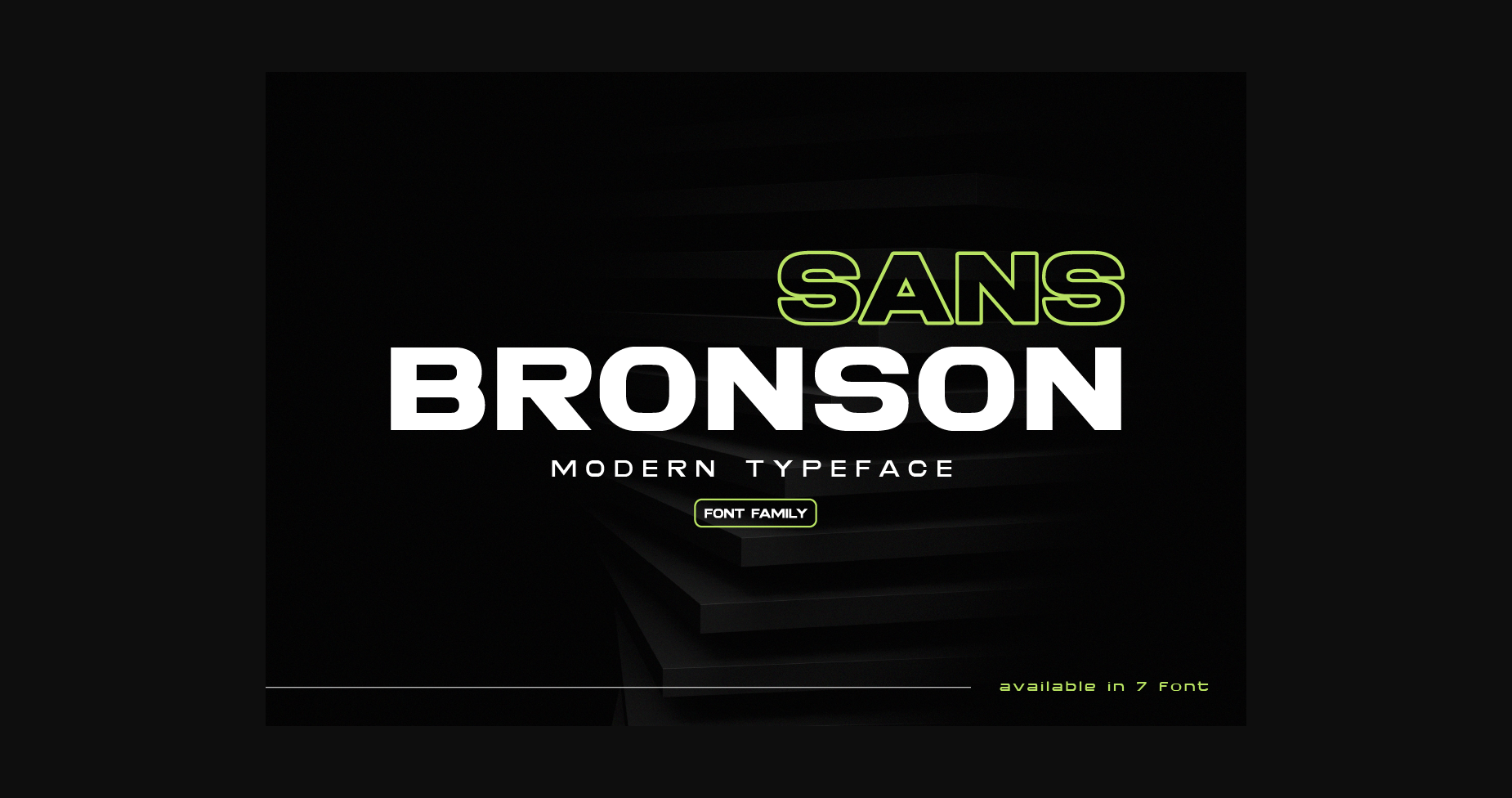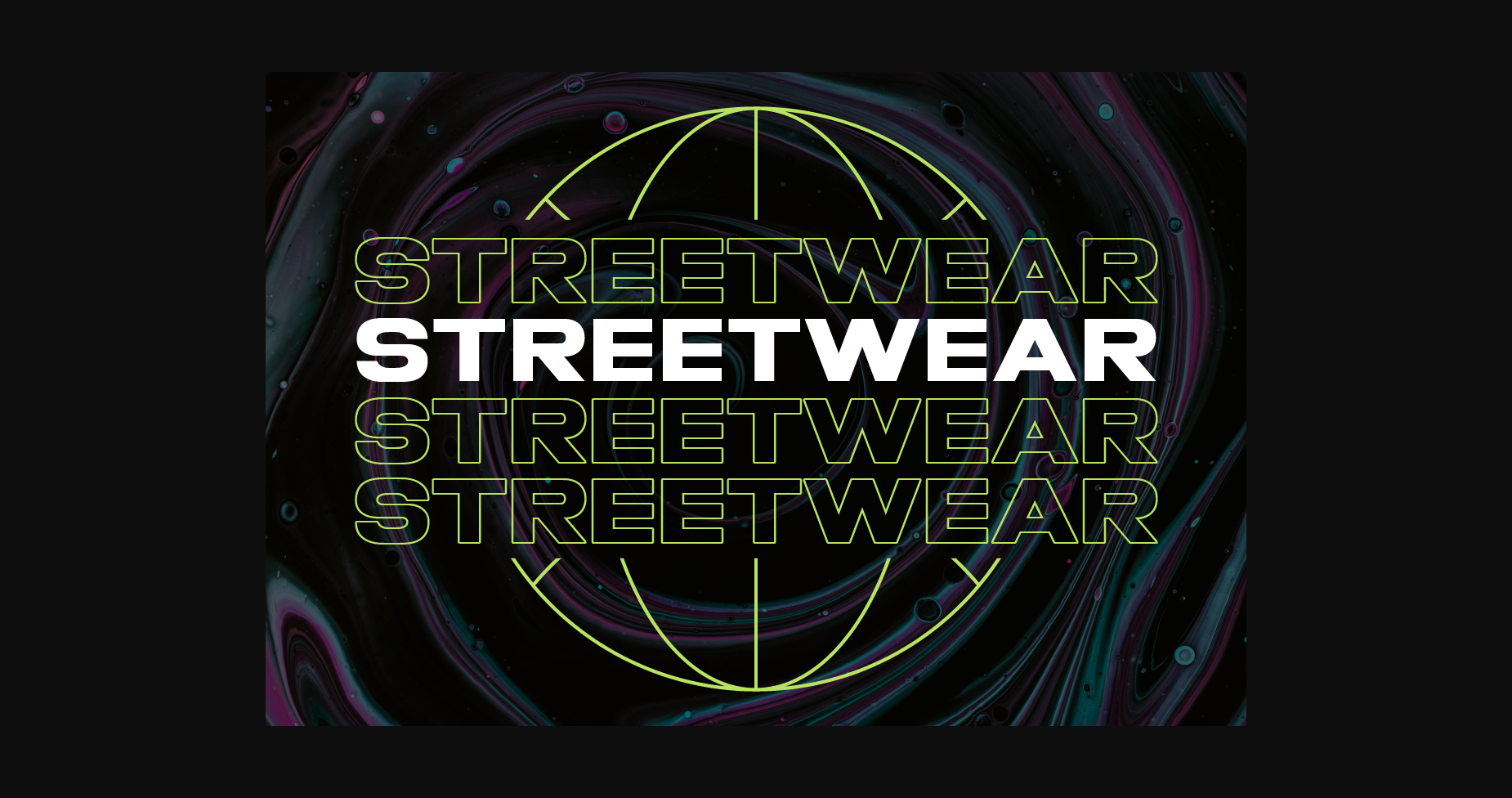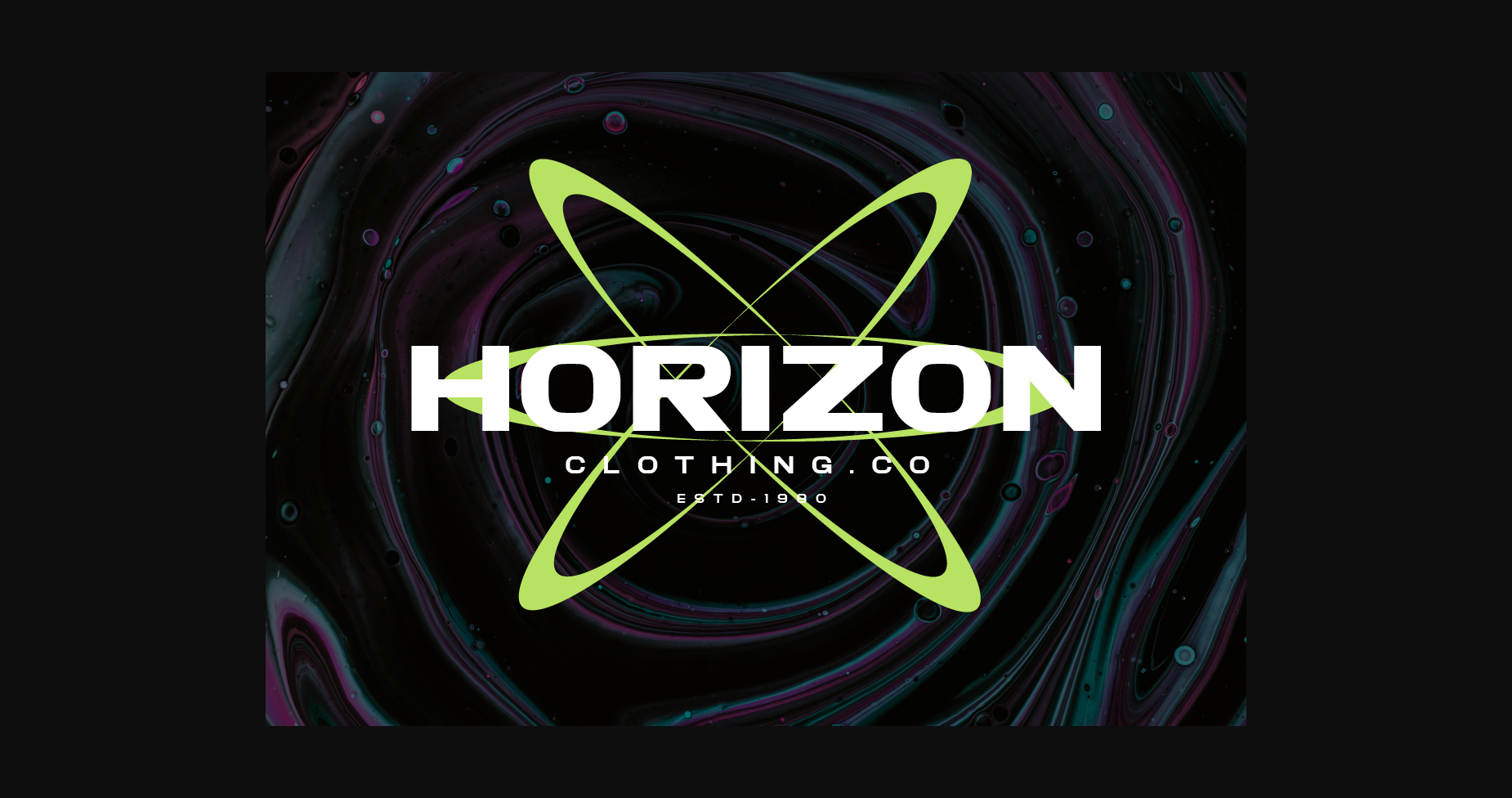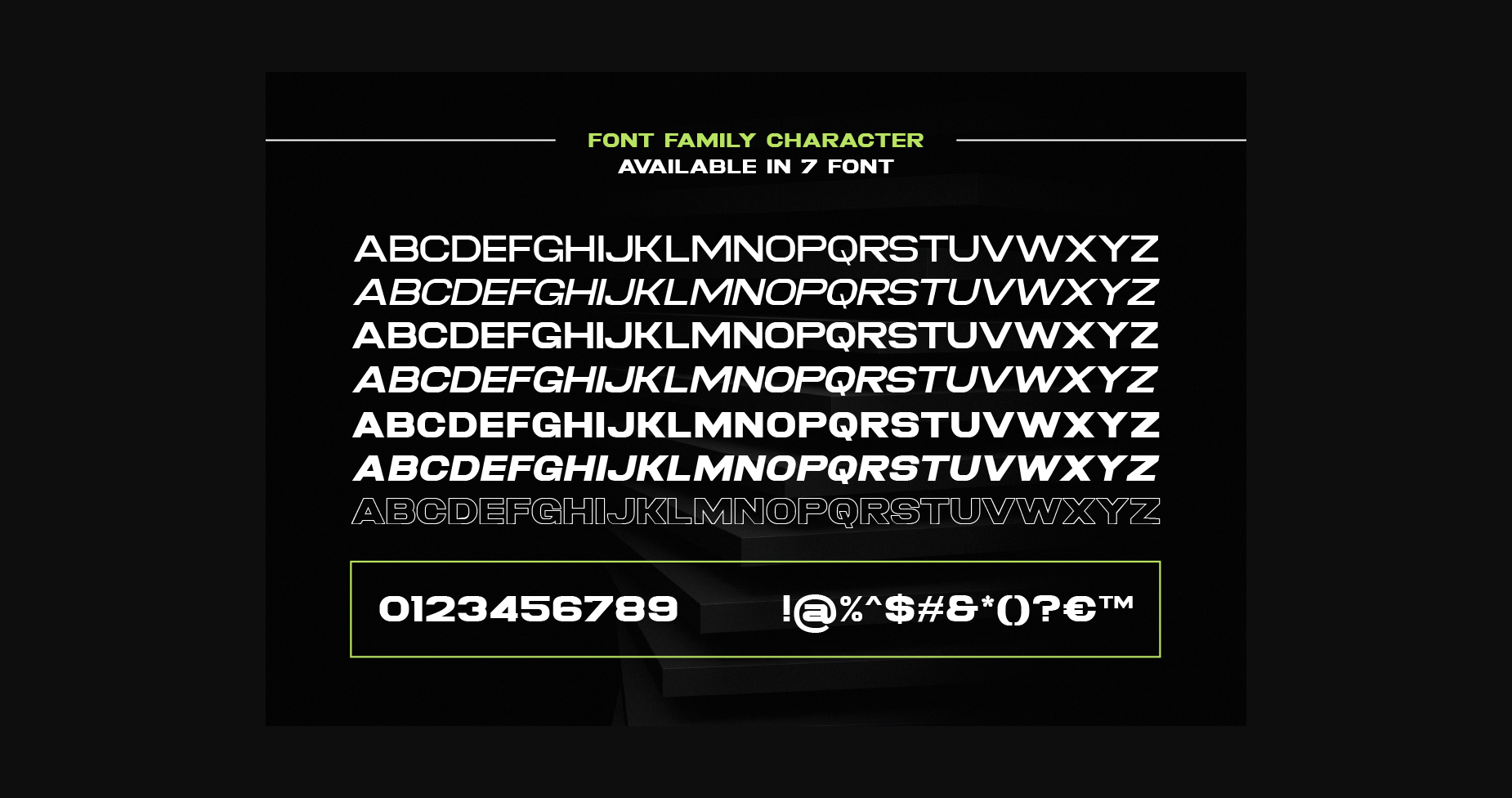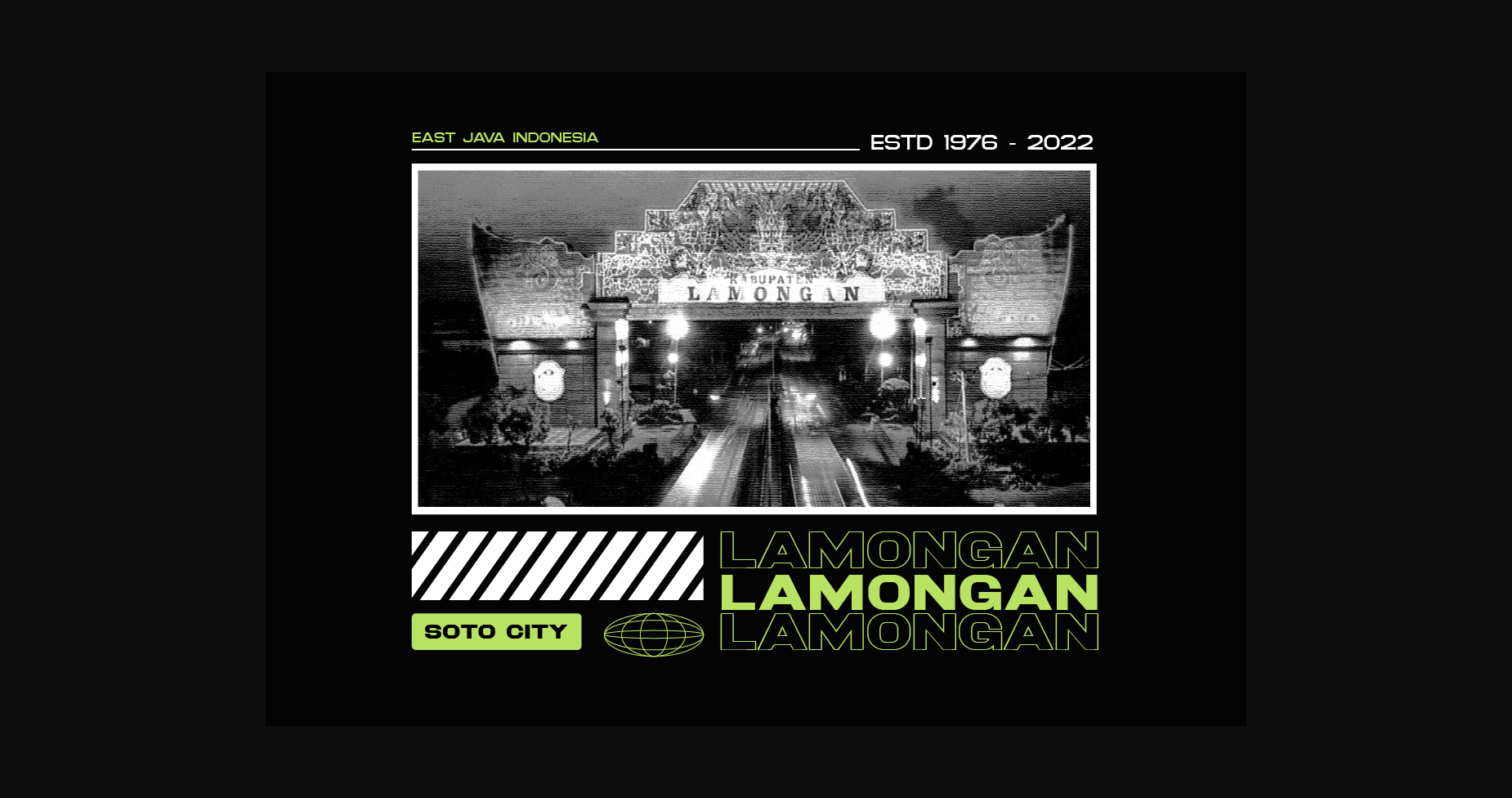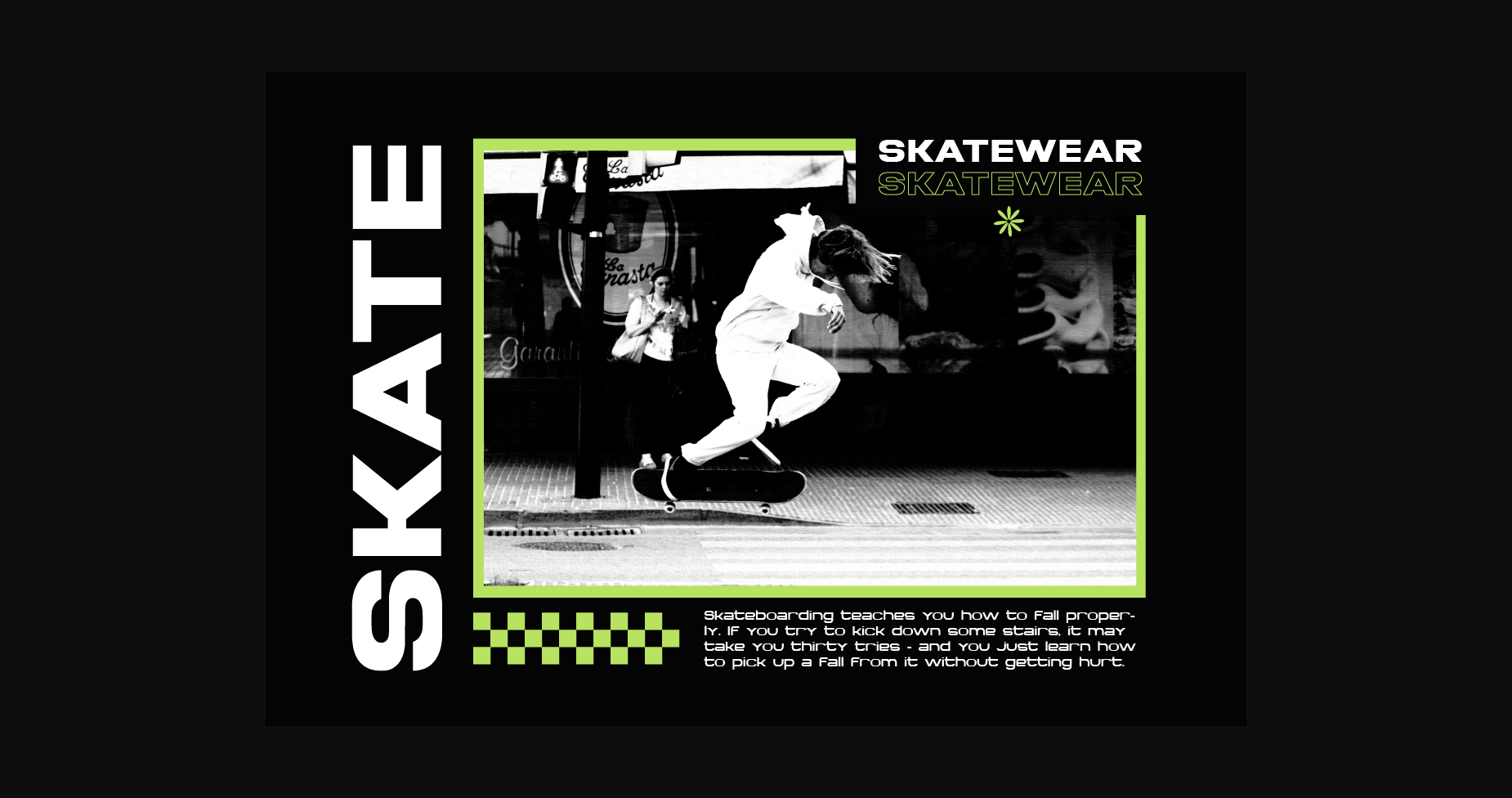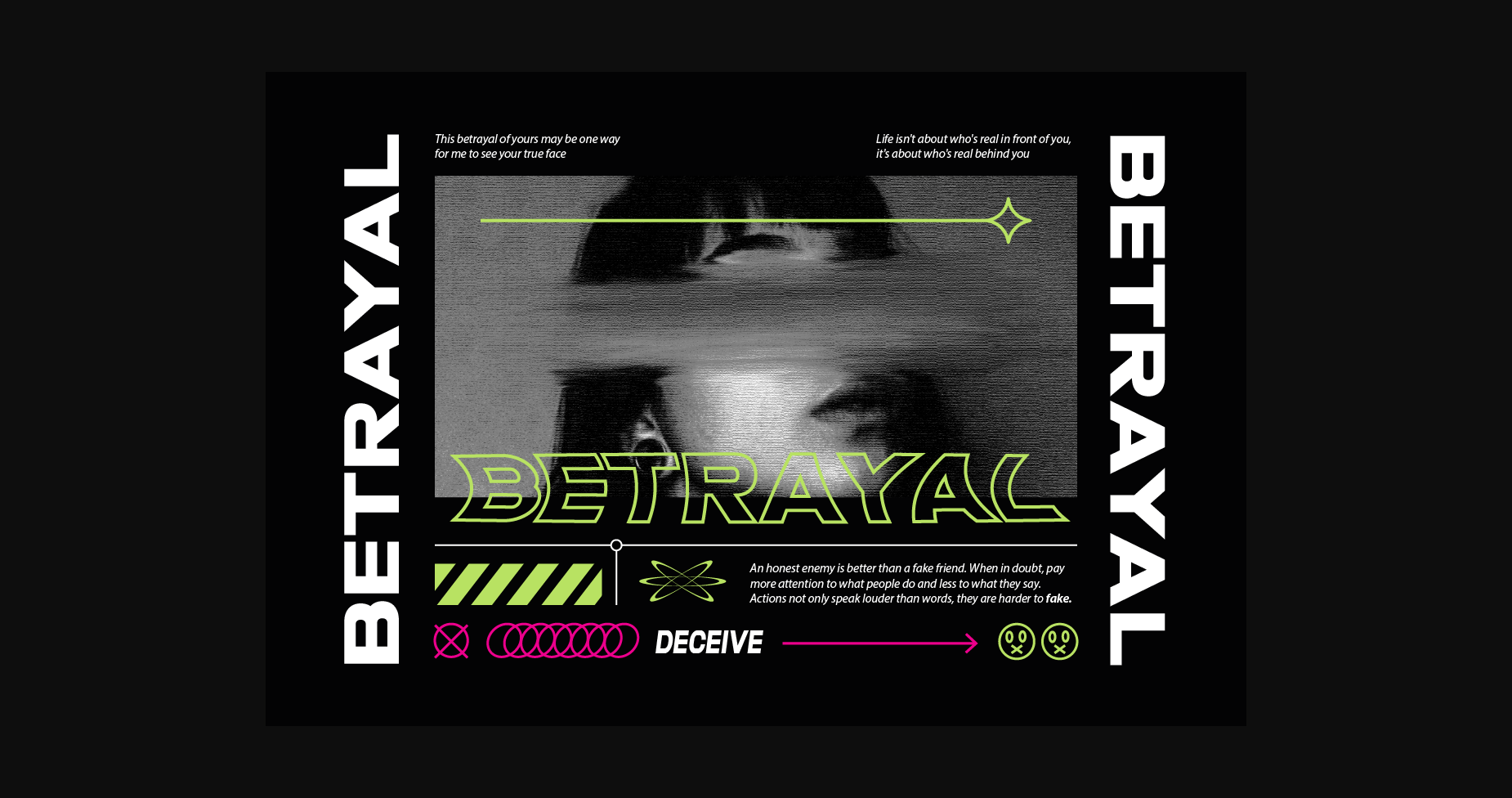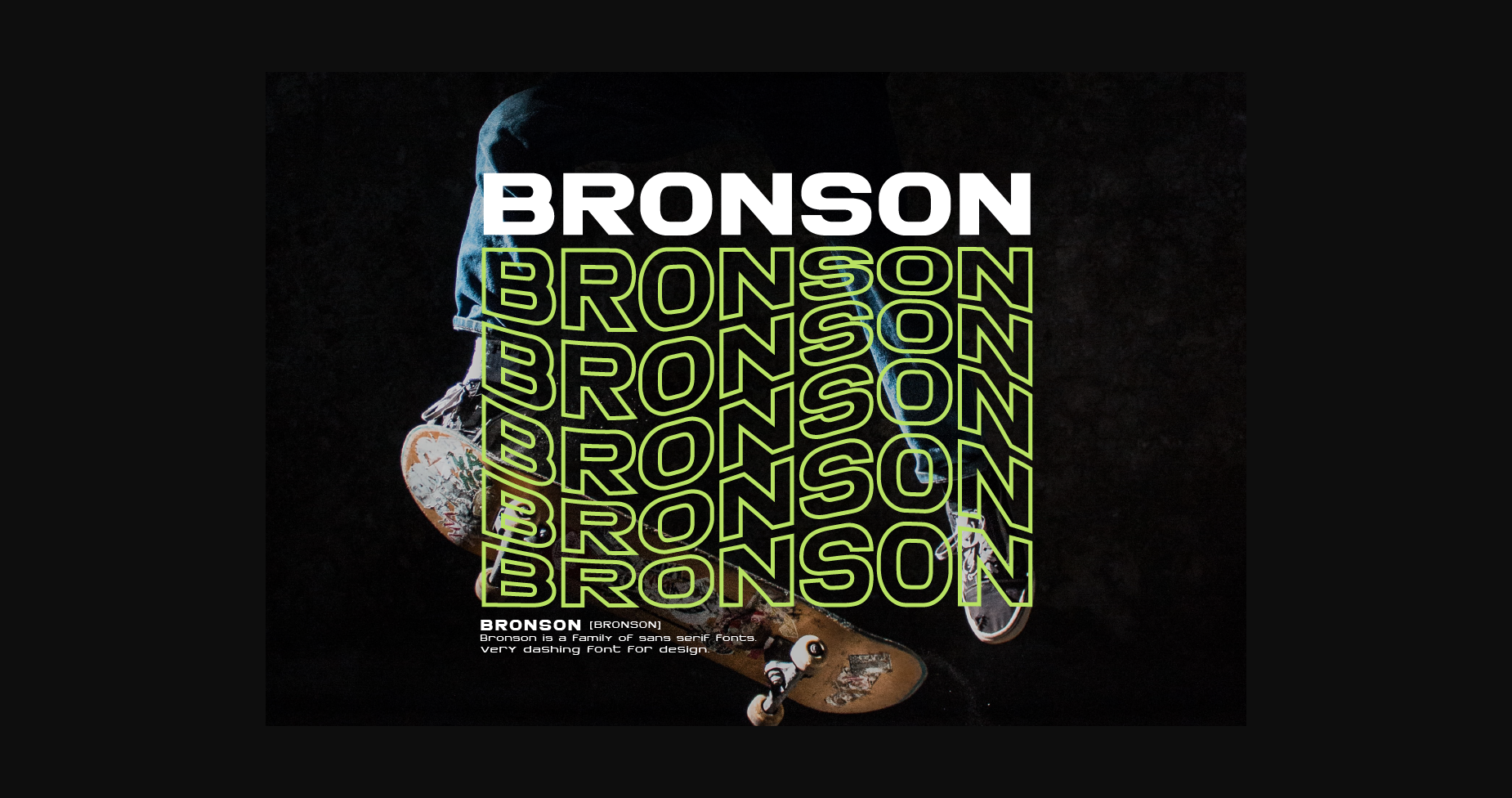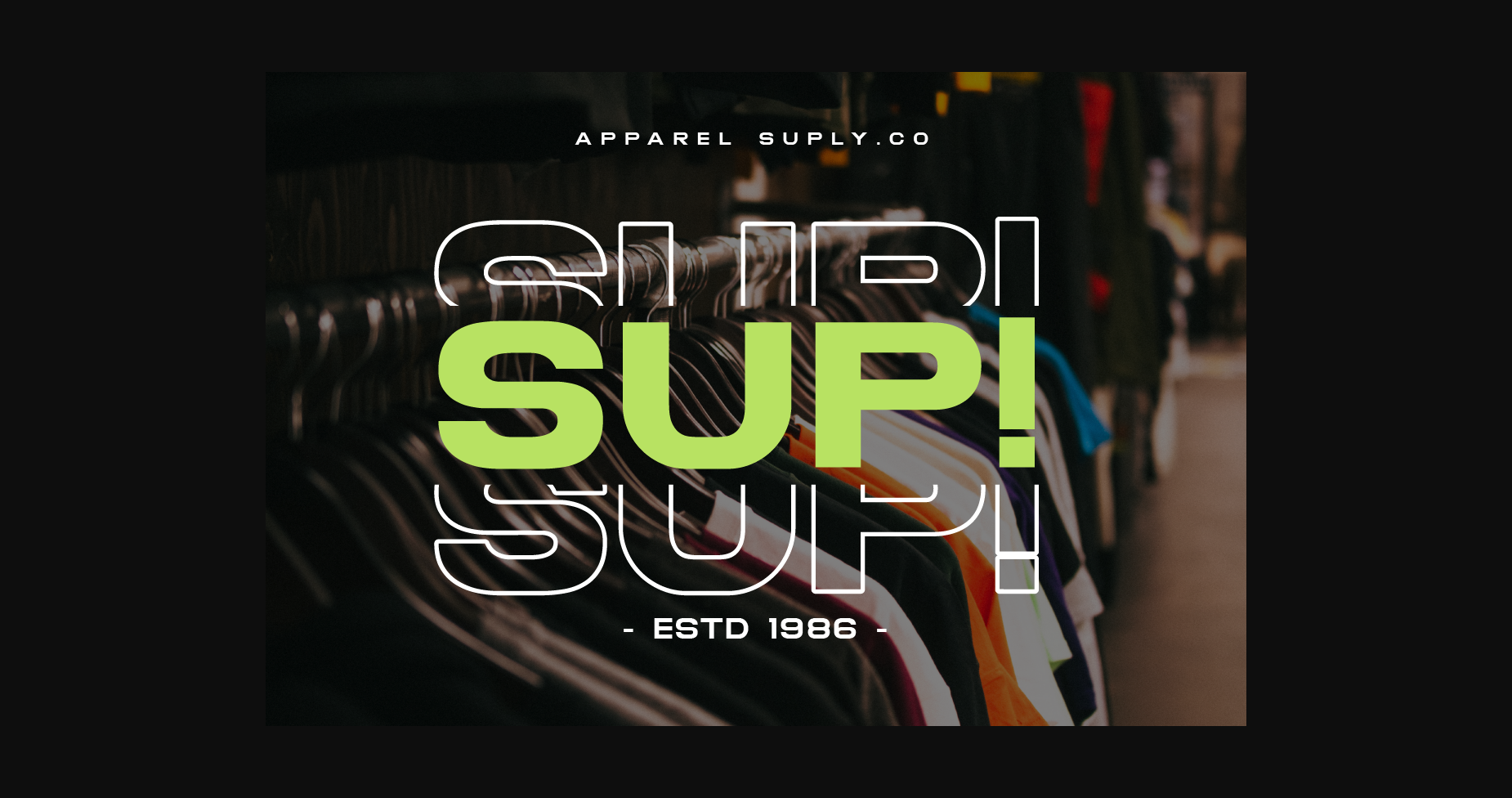
HomeSans Serif FontsBronson Font Sans Serif Fonts Bronson Font FacebookXPinterestWhatsApp 1 of 11 ... Bronson Font Poster 2... Bronson Font Poster 3... Bronson Font Poster 4... Bronson Font Poster 5... Bronson Font Poster 6... Bronson Font Poster 7... Bronson Font Poster 8... Bronson Font Poster 9... Bronson Font Poster 10... Bronson Font Poster 11... About Bronson Font Bronson is a cool and modern sans serif font. Whatever the topic, this font will be a wonderful asset to your font library, as it has the potential to enhance any creation. DOWNLOAD NOW People also explored Hearts in Arrows Font Holland Script Font Summer Vocation Font Hoskyla Font Sonia Evans Font Branded Signature Font Hustle Authorion Font Garden House Font Misty Whisper Font 390 0 TagsBronsonBronson Font Previous articleRoolfe FontNext articleAstronoma Font LEAVE A REPLY Cancel reply Comment: Please enter your comment! Name:* Please enter your name here Email:* You have entered an incorrect email address! Please enter your email address here Website: Save my name, email, and website in this browser for the next time I comment. Personal Use Free Ammanda Personal Use Free Read more about this font Nugo Sans Personal Use Free Read more about this font Sunbright Font Personal Use Free Read more about this font Evensong Hollow Personal Use Free Read more about this font BLOG How to Cut Any Font on Cricut: Convert a Font to SVG (Free) Turn any font into a clean SVG so it cuts crisp on Cricut - a quick 3-step workflow using a free font-to-SVG tool. How to Install and Use Fonts on Windows, macOS, and Web Projects Free vs Paid Fonts: Why Investing in Premium Fonts Is Worth It To increase your work productivity, choose the most readable fonts.